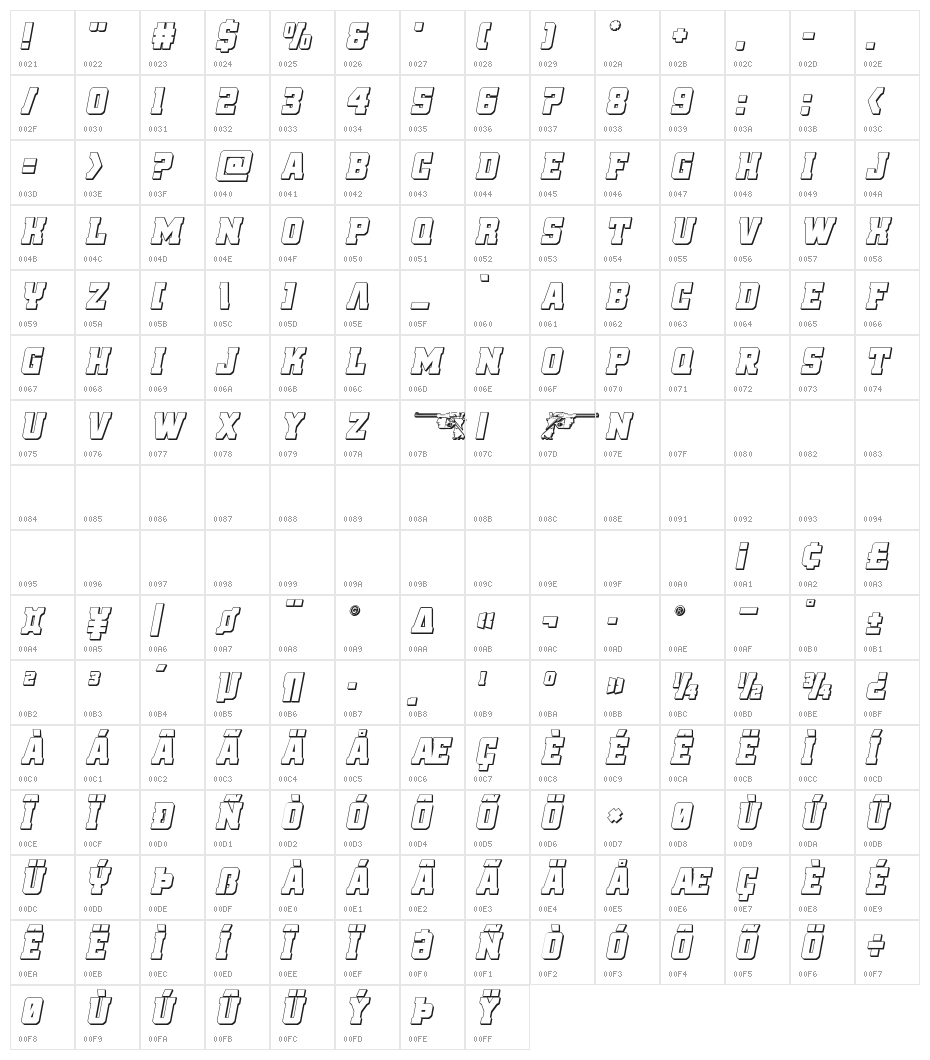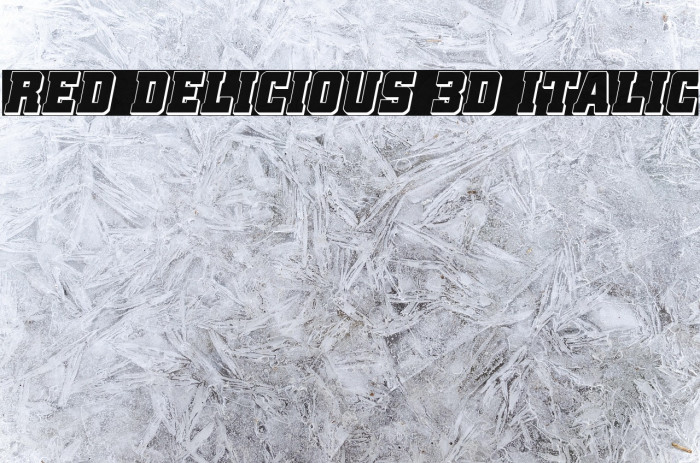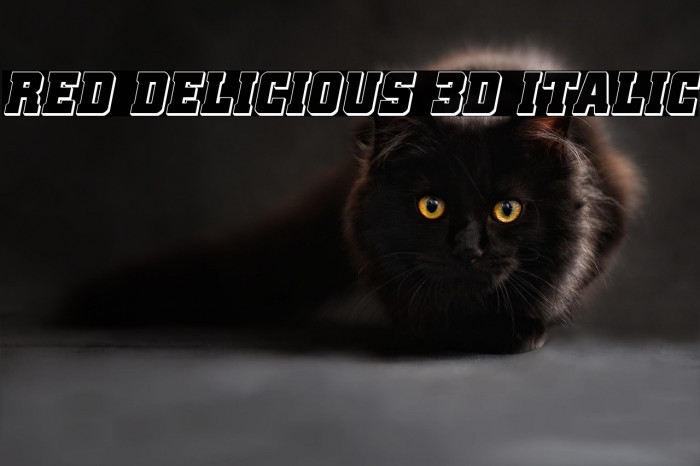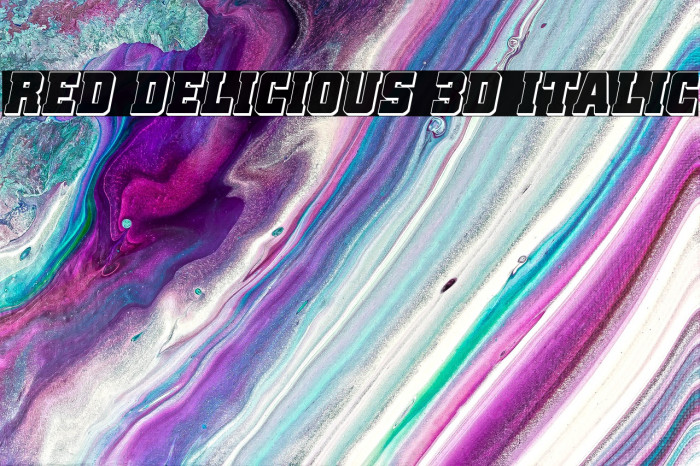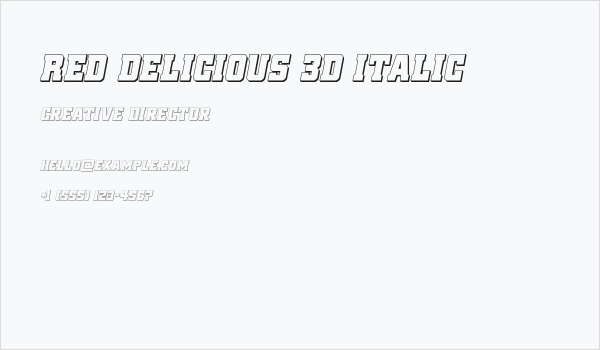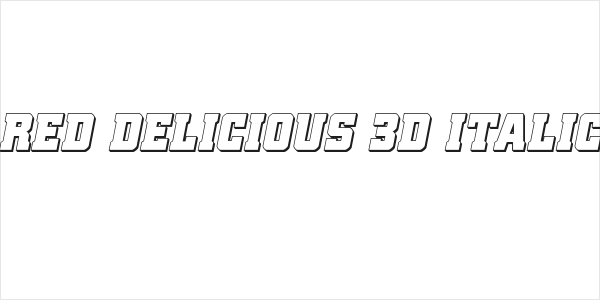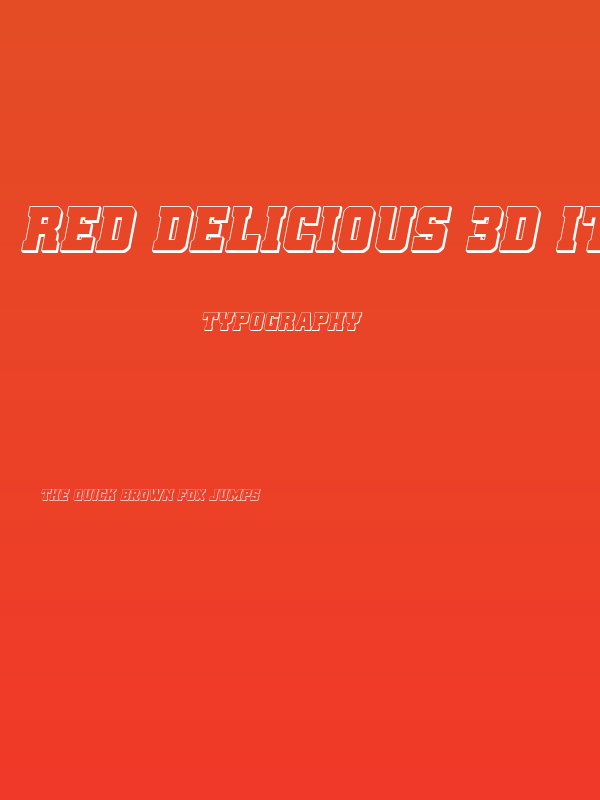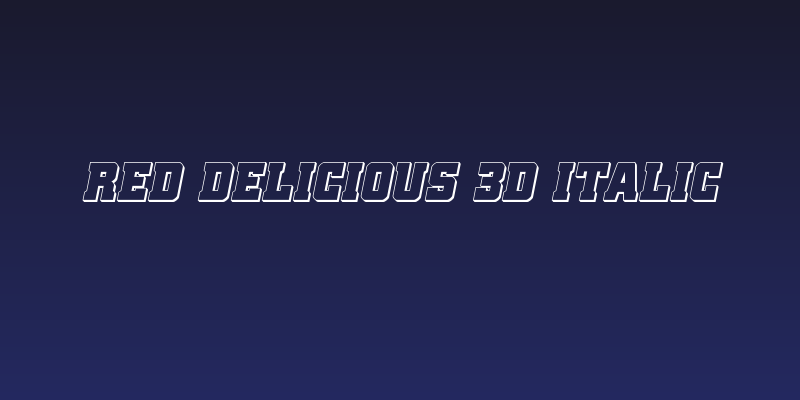
Red Delicious 3D Italic Font
Red Delicious 3D Italic Description
This font features a bold, three-dimensional design with a strong italic slant, giving it a dynamic and energetic appearance. The characters are outlined, adding depth and a shadow effect that enhances its 3D look. The style is consistent across uppercase, lowercase, numbers, and special characters, maintaining a cohesive and striking visual impact. The boldness and italicization make it stand out, suitable for attention-grabbing headlines or titles. The font's design is modern and playful, with a touch of retro influence, making it versatile for various creative projects.
| Proposed Projects | Ideal for posters, logos, video game graphics, and any project needing a bold, eye-catching typeface. |